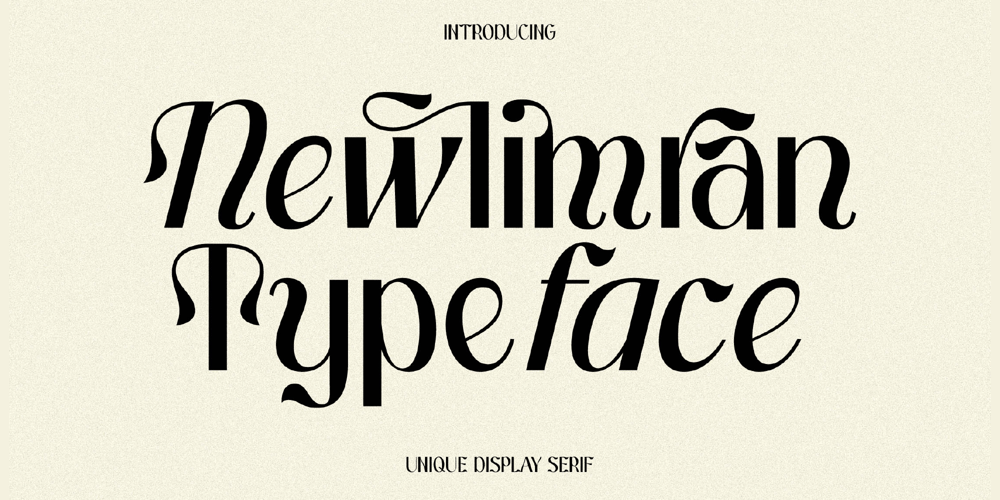
Newlimran
Newlimran font
Newlimran Font Family was designed by Heru Utama Putra and published by Letterena Studios. Newlimran contains 2 styles and family package options. Newlimran Typeface is a modern display typeface. This lovely font is perfect for an elegant & luxury logo, book or movie title design, fashion brand, magazine, clothes, lettering, quotes, and so much more.